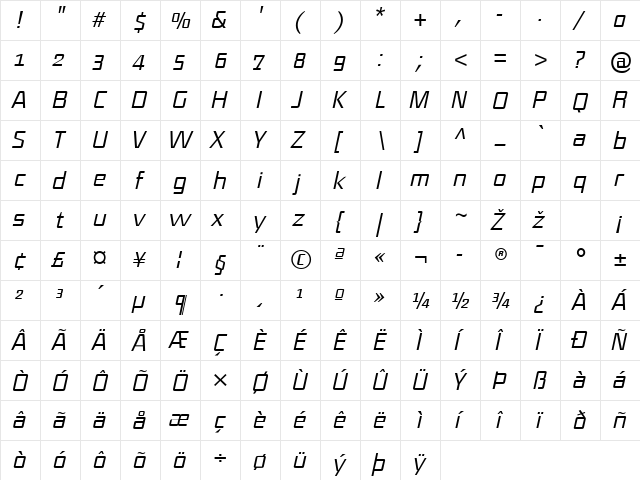
District-LightItalic Regular
| Foundry | FontShop International |
| Designer | Albert Boton |
Design Context for District-LightItalic Typeface
District-LightItalic is a composed and adaptable typeface that performs quietly and consistently across a wide range of design contexts. Its italic angle brings a sense of urgency and motion to the letterforms. The delicate stroke weight brings airiness and refinement to layouts.